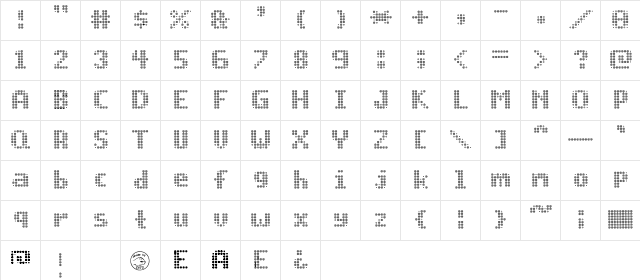
OPTIC.BOT Regular
| Foundry | [ Divide By Zero ] Fonts |
| Designer | Tom Murphy 7 |
Design Context for OPTIC.BOT Typeface
OPTIC.BOT takes a measured approach to typography — its balanced proportions and neutral character make it a reliable workhorse for both digital and print work.